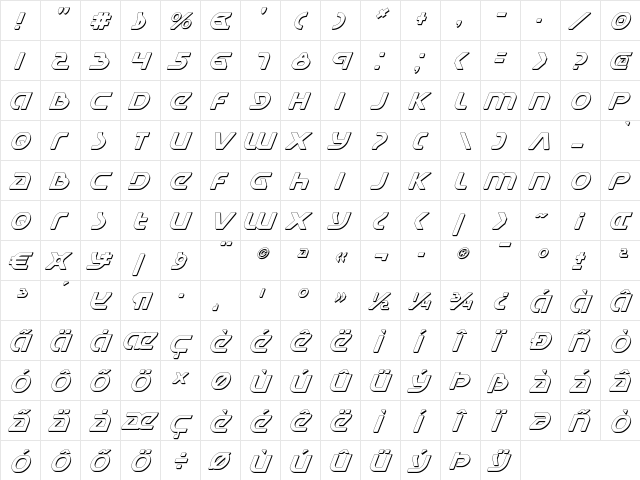
Universal Jack Shadow Italic Shadow Italic
| Designer | Dan Zadorozny |
Design Context for Universal Jack Shadow Italic Typeface
Universal Jack Shadow Italic is built around its visual character rather than neutral utility — its distinctive forms are designed to make an impression at display sizes. The slanted form adds forward momentum and visual energy.
Font Pairing: Pair with a clean neutral sans-serif for body copy to let Universal Jack Shadow Italic's character lead without overwhelming the composition.
Pro Tip: Use Universal Jack Shadow Italic exclusively at display sizes — it was designed to be seen, not read at length. Let a neutral companion handle body copy.